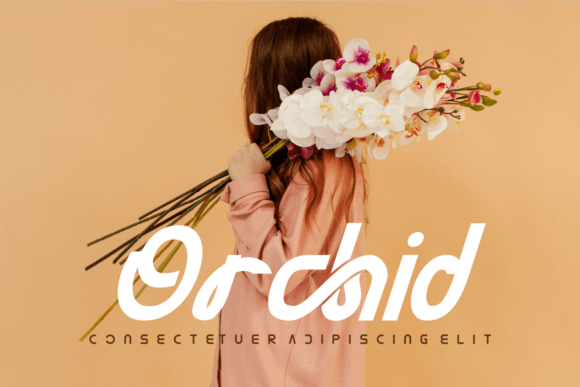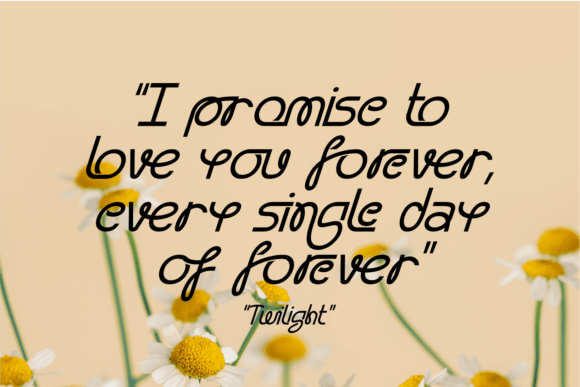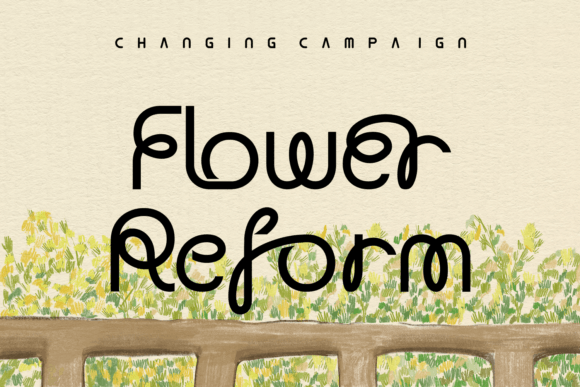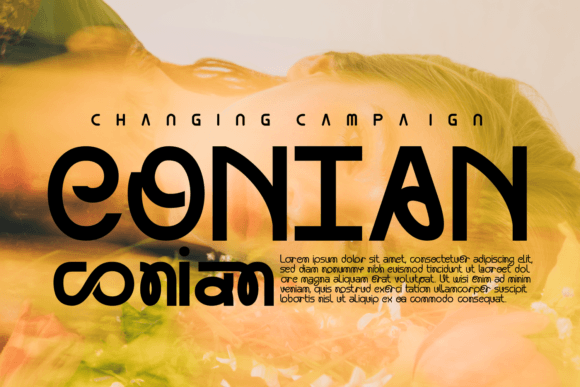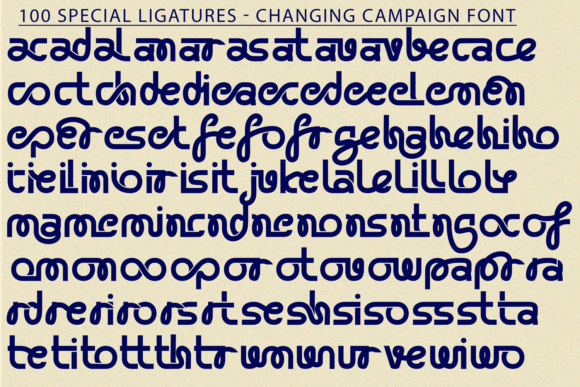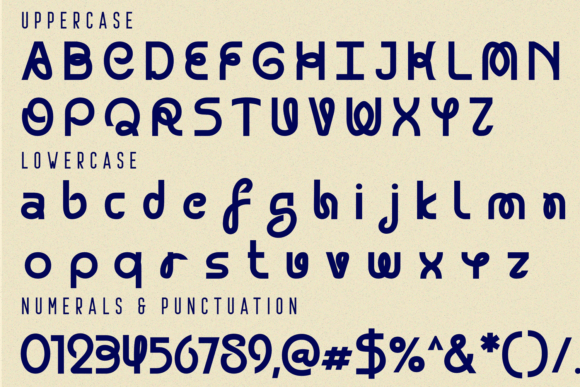
Unlocking Creative Possibilities: A Guide to Changing Campaign Font
Are you tired of using the same old fonts in your designs? Look no further than Changing Campaign, a playful decorative display font that’s sure to add a touch of personality to your projects. In this article, we’ll dive into the world of Changing Campaign, exploring its unique features, and how you can use it to take your designs to the next level.
What is Changing Campaign Font?
Changing Campaign is a geometric sans serif font with a playful twist. Inspired by doodle styles and hand-drawn lettering, this font is perfect for designers and crafters looking to add a touch of whimsy to their work. With its unique alternate characters, you can combine letters and create awesome waves that will make your designs stand out.
Key Features of Changing Campaign Font
- Playful Doodle Style: Changing Campaign’s doodle style inspiration sets it apart from other fonts. Its hand-drawn feel makes it perfect for designs that require a personal touch.
- Hand-Drawn Lettering: The font’s hand-drawn lettering gives it a unique, organic feel that’s perfect for creating eye-catching designs.
- Geometric Sans Serif: Changing Campaign’s geometric sans serif design makes it versatile and easy to read, even at large sizes.
- Unique Alternate Characters: With Changing Campaign, you can mix and match upper and lowercase letters to create unique and interesting combinations.
- OpenType Features: This font was built with OpenType features, making it easy to use and customize.
- 100 Ligatures, Alternate, Numbers, Punctuation: Changing Campaign includes a wide range of ligatures, alternate characters, numbers, and punctuation marks, giving you plenty of options for creating unique designs.
- Language Support: This font supports multiple languages, making it perfect for designers working on international projects.
Using Changing Campaign Font in Your Designs
So, how can you use Changing Campaign in your designs? Here are a few ideas to get you started:
- Headlines and Titles: Use Changing Campaign to create eye-catching headlines and titles that will grab your audience’s attention.
- Signage and Posters: This font is perfect for creating eye-catching signage and posters that will stand out in a crowd.
- Branding and Packaging: Use Changing Campaign to add a touch of personality to your branding and packaging designs.
- Social Media Graphics: This font is perfect for creating social media graphics that will help your brand stand out.
Tips and Tricks for Getting the Most Out of Changing Campaign
Here are a few tips and tricks for getting the most out of Changing Campaign:
- Experiment with Alternate Characters: Don’t be afraid to experiment with Changing Campaign’s alternate characters. You can create unique and interesting combinations that will make your designs stand out.
- Mix and Match Upper and Lowercase Letters: Mixing and matching upper and lowercase letters is a great way to add visual interest to your designs.
- Add Memphis-Style Doodles: Adding Memphis-style doodles to your designs is a great way to add a touch of whimsy and personality.
Changing Campaign is a versatile and playful font that’s perfect for designers and crafters looking to add a touch of personality to their work. With its unique features, including alternate characters, OpenType features, and language support, this font is sure to become a go-to in your design toolkit. So why not give Changing Campaign a try and see how it can help take your designs to the next level?
Whether you’re a seasoned designer or just starting out, Changing Campaign is a great addition to any design project. Its unique blend of geometric sans serif and playful doodle style makes it perfect for a wide range of applications, from headlines and titles to signage and posters. So don’t wait – download Changing Campaign today and start creating!